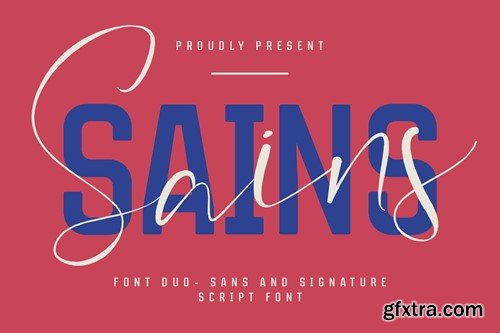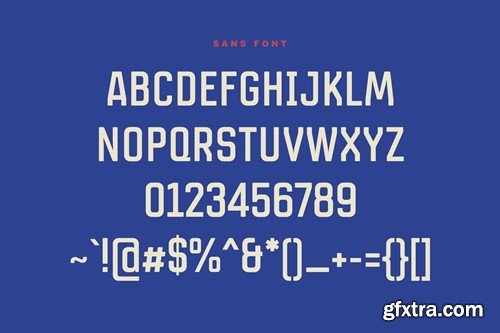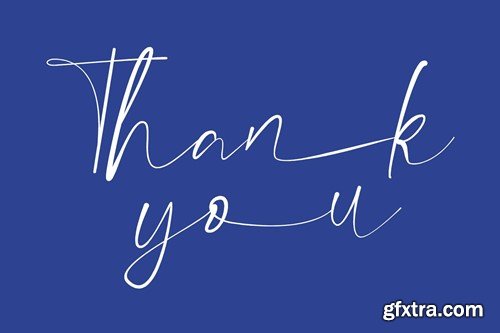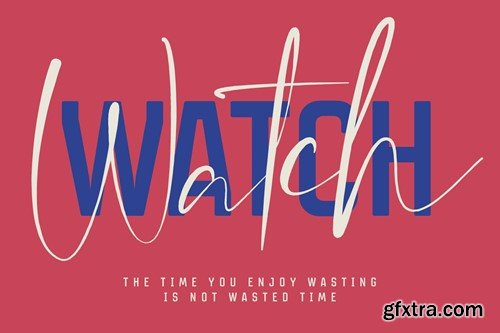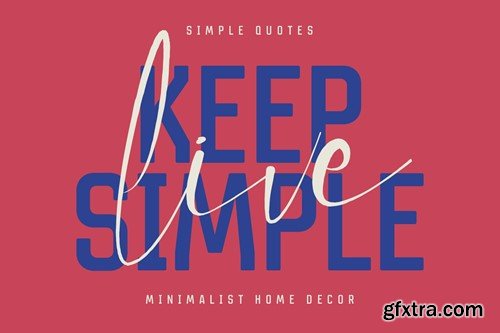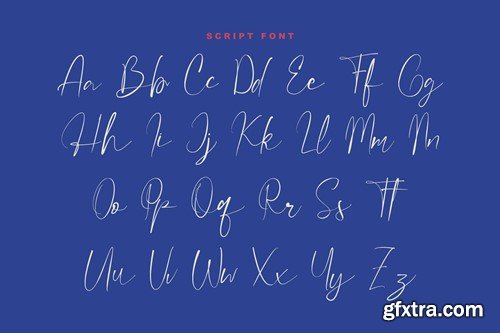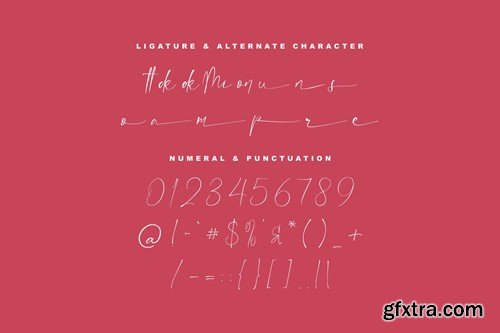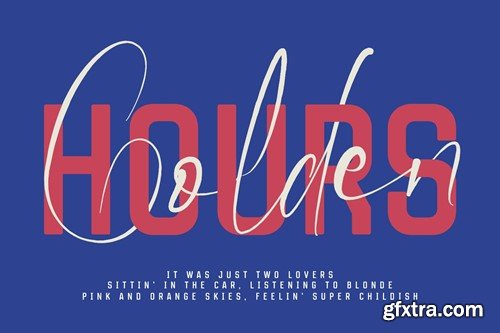
三星方顿Sans脚本L9US6VM
Sains Font Duo Sans Script L9US6VM
Sains Font Duo Sans Script
Give your designs an authentic brush handcrafted feel. “ Sains” is perfectly suited to signature, stationery, logo, typography quotes, website header, branding and more.